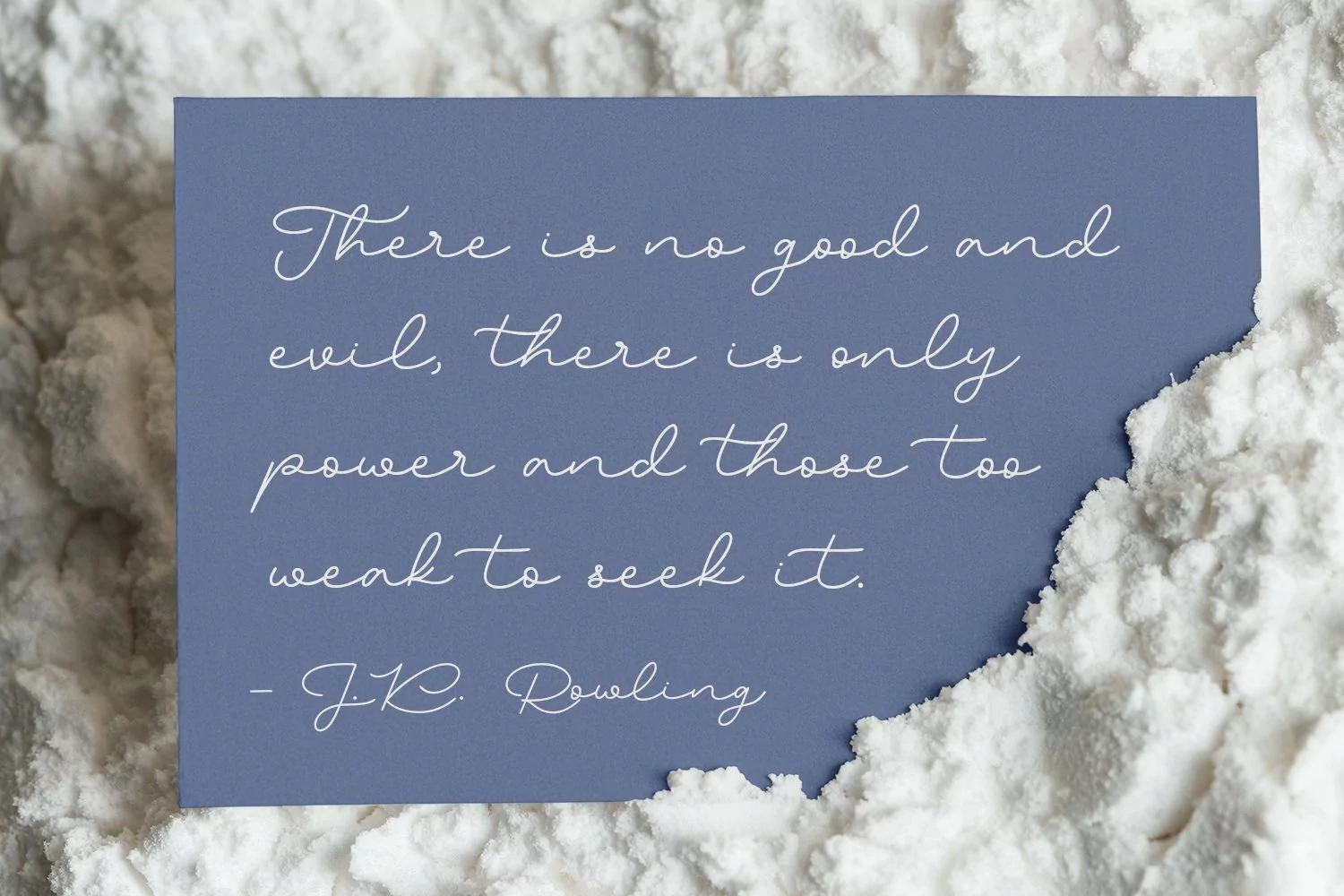
Hockleys is a Cursive script font. With light mono-line stroke, slant and fun character with a bit of ligatures and a bit lower alternates. To give you an extra creative work. Hockleys font support multilingual more than 100+ language. This font is good for logo design, Social media, Movie Titles, Books Titles, a short text even a long text letter and good for your secondary text font with sans or serif. Make a stunning work with Hockleys font.